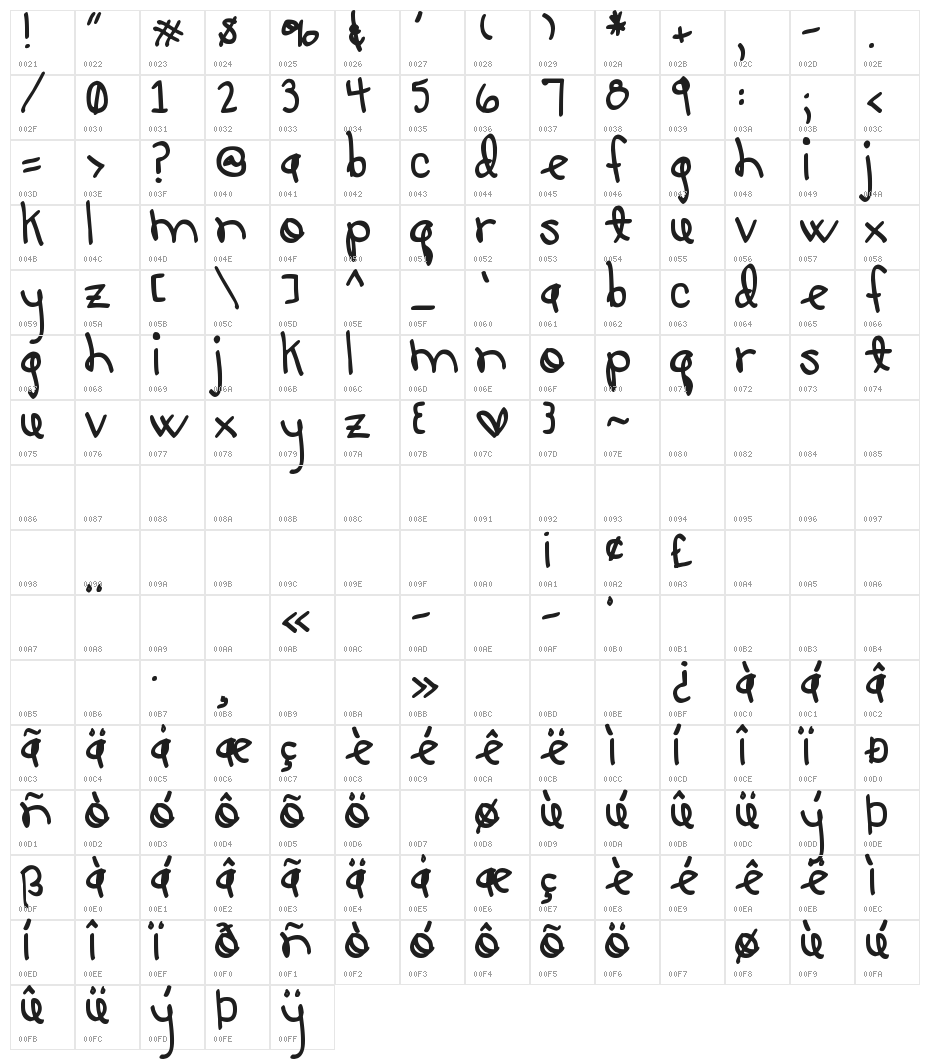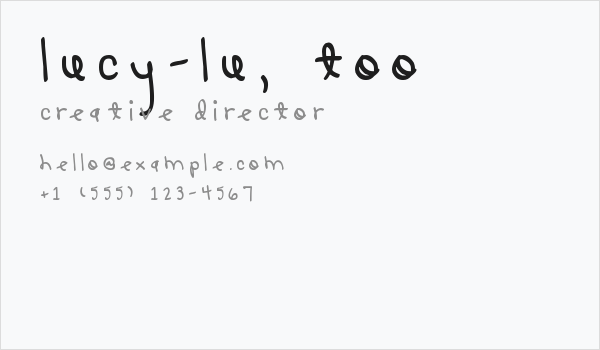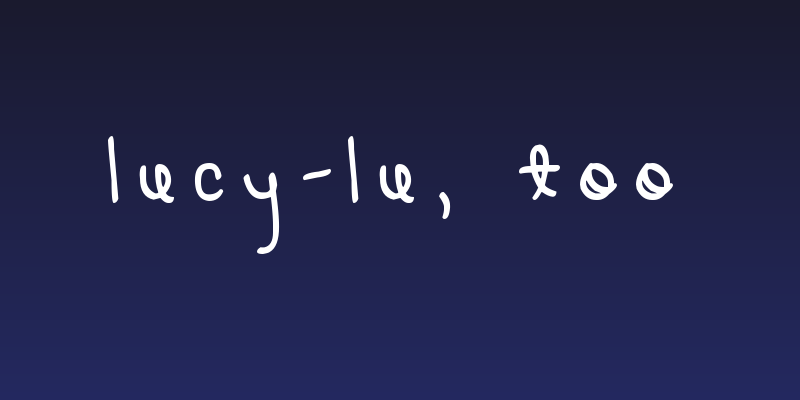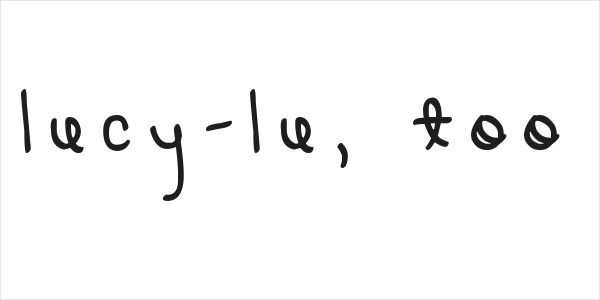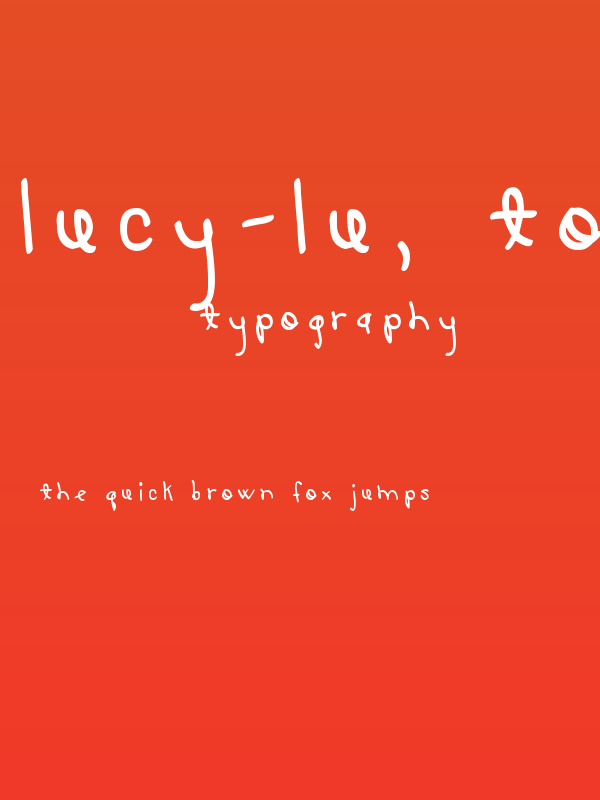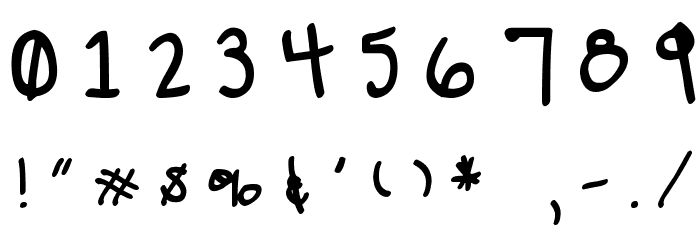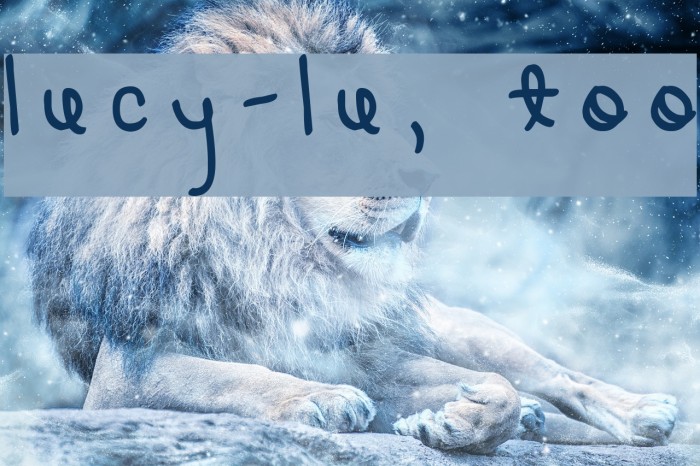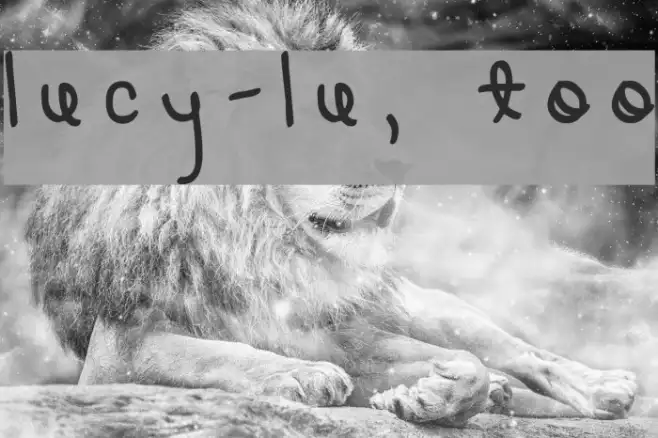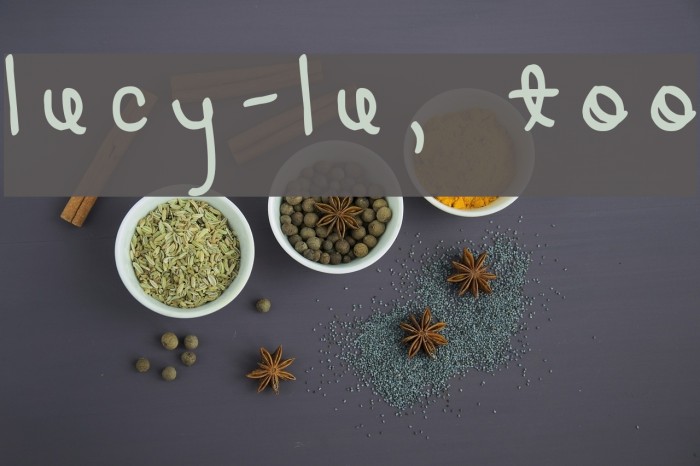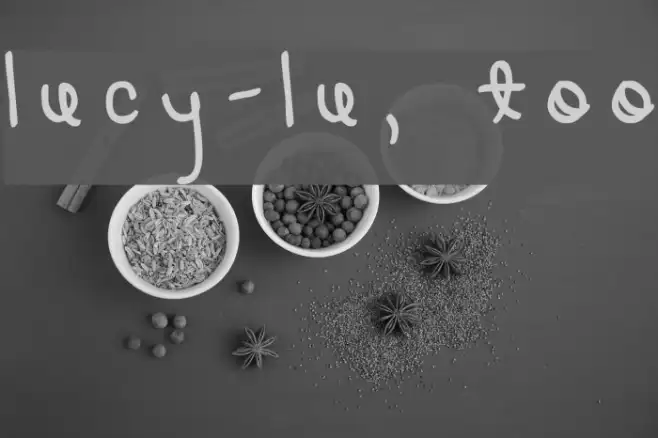
LUCY-LU, TOO Font
LUCY-LU, TOO Description
| Proposed Projects | Ideal for children's books, personal blogs, creative invitations, and casual branding. |